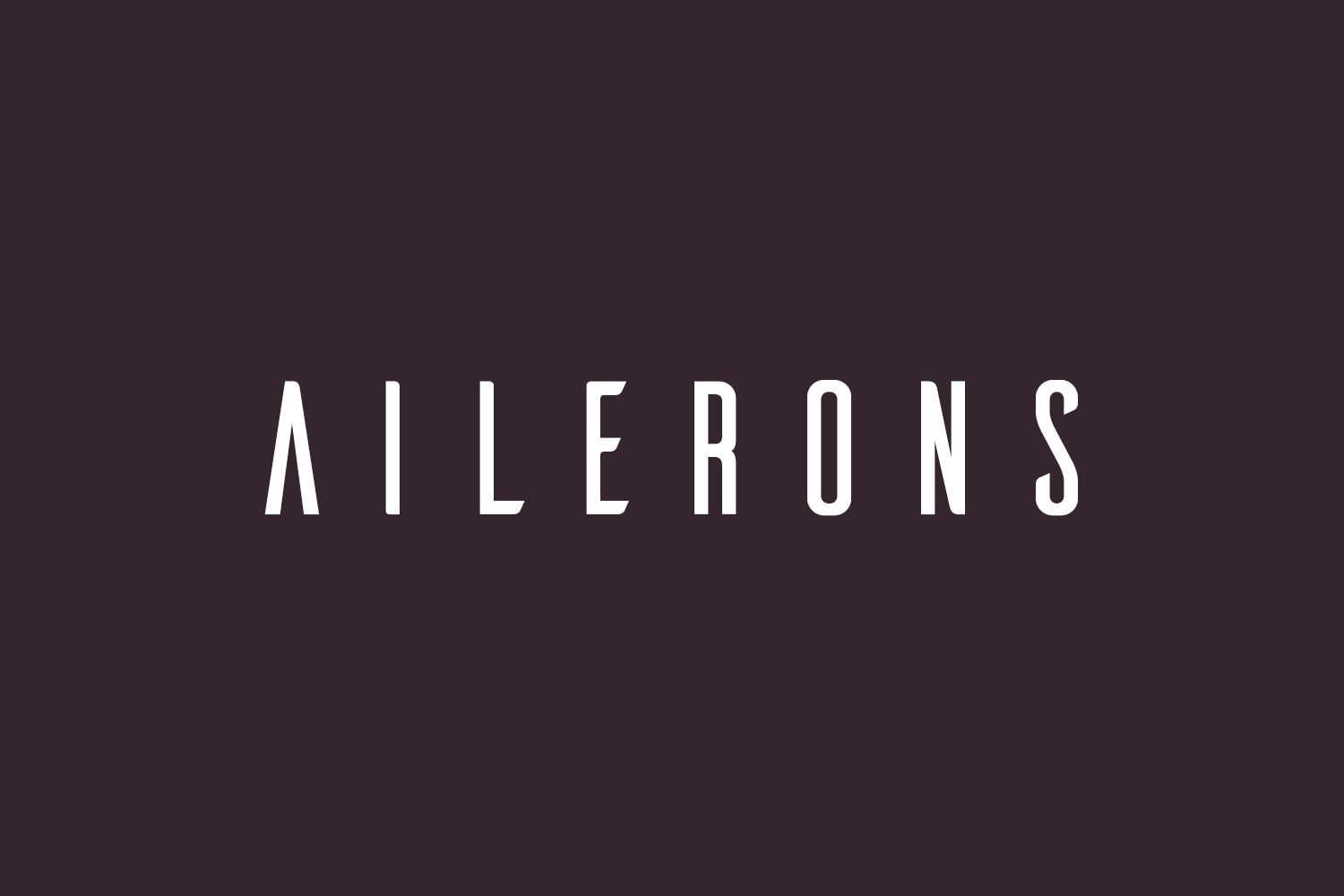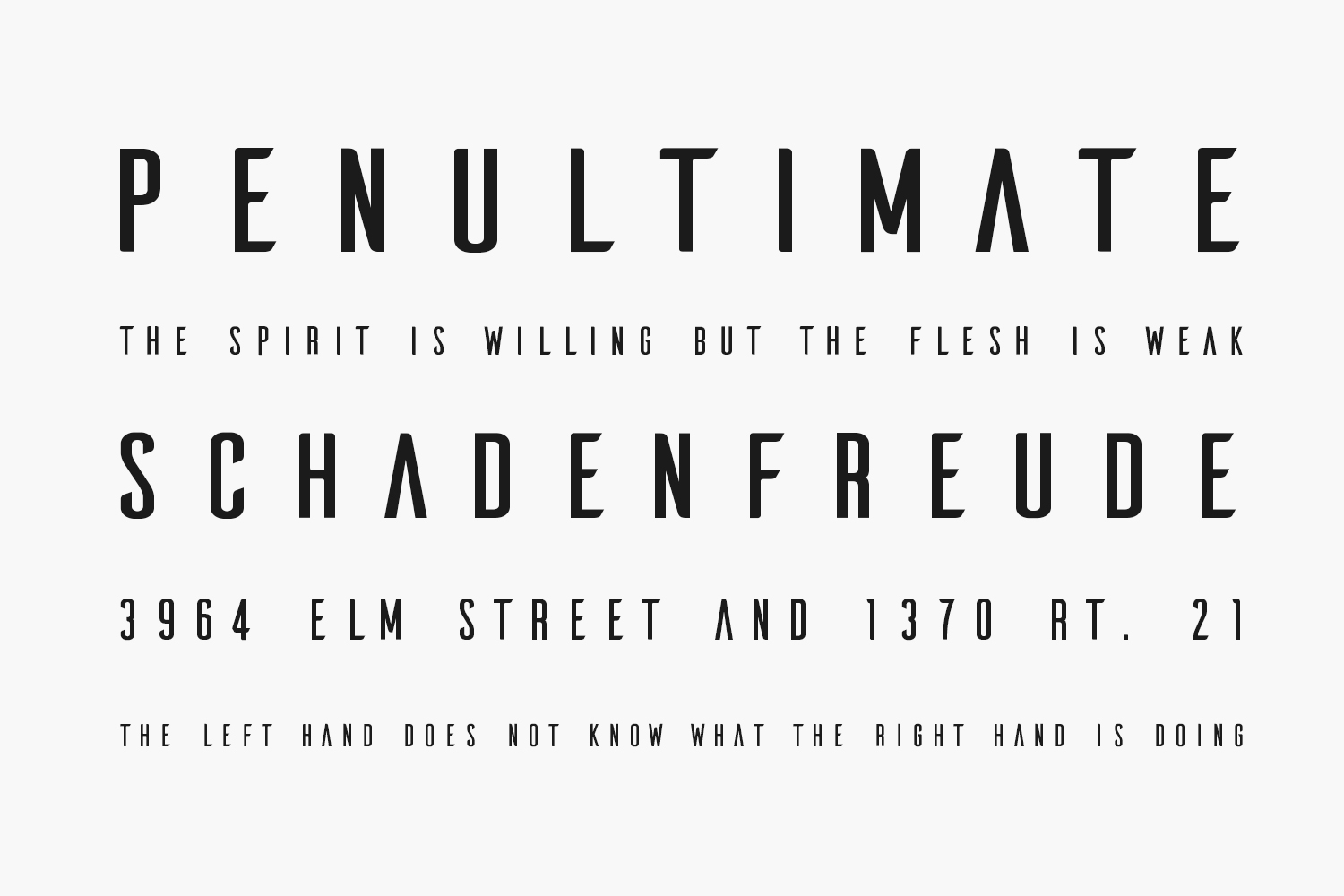
Ailerons Free Font was inspired by aircraft models from the 40s. Download the font for free if you need it for personal use or purchase the full version for commercial use.
Designed by Agonz Oliveira